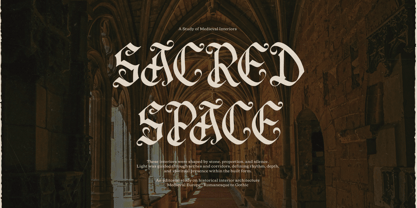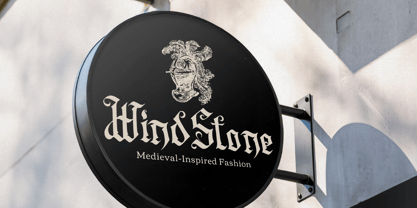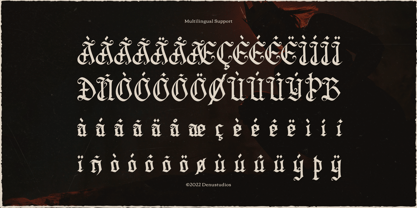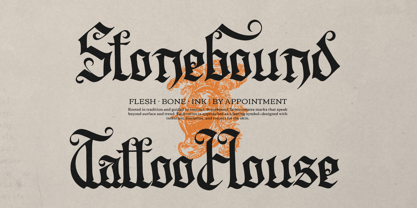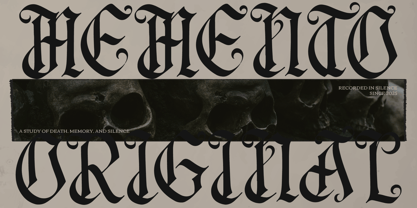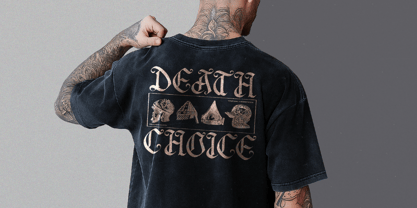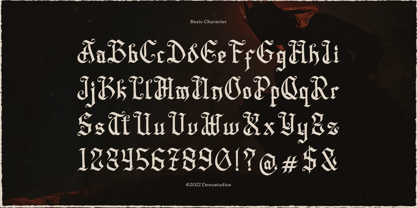
Rexstorm
by Denustudio
The Rexstorm Font Family was designed by Dede Nugraha and published by Denustudio. Rexstorm contains 1 styles.
Rexstorm | Blackletter Typeface, from Denustudios, suitable for any projects such as: logos, branding projects, homeware designs, product packaging, mugs, quotes, posters, shopping bags, t-shirts, book covers, name card, invitation cards, greeting cards, label, photography, watermark, special events, and all your other lovely projects that need Arabic a taste.